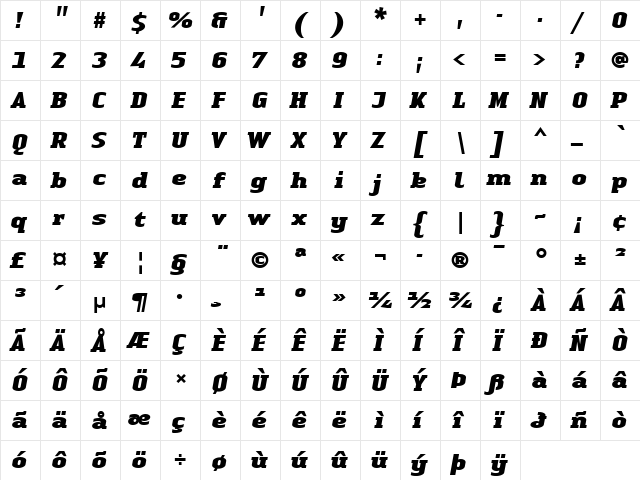
LTAuthenticSerif BlackItalic Black Italic Font Preview
LTAuthenticSerif BlackItalic Black Italic
Design Context for LTAuthenticSerif BlackItalic Typeface
LTAuthenticSerif BlackItalic brings classic typographic sensibility to the table — its serifs and measured letterforms reflect centuries of print heritage. The dynamic lean of this cut emphasises speed and emphasis in any layout.
Pro Tip: Set LTAuthenticSerif BlackItalic with slightly loose tracking in headlines to let each letterform's detail read clearly at display sizes.